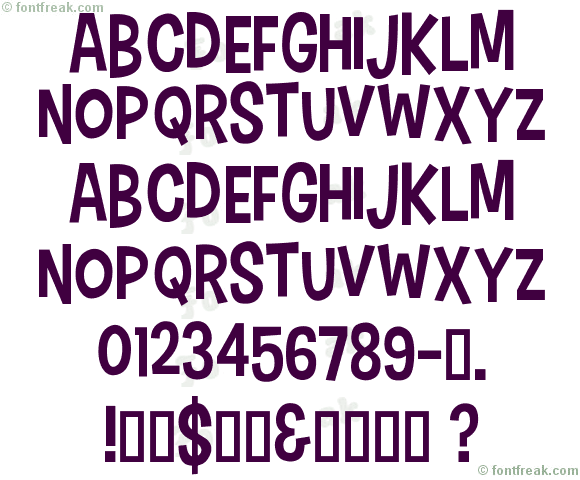
Carton Six
About Carton Six
Carton Six, designed by Jayvee Enaguas, is a striking display font that perfectly blends fun and functionality. As a decorative font, it features bold, chunky letterforms that instantly grab attention. The unique stroke weight creates a sense of playfulness, while the consistent spacing ensures readability, making it an excellent choice for various creative projects. With its rounded edges and slightly exaggerated proportions, Carton Six exudes a modern charm that can elevate any design.
This font is particularly well-suited for a range of applications. It shines in contexts such as event posters, where its eye-catching presence can draw in crowds. Additionally, it is ideal for children’s book covers, bringing a whimsical touch that appeals to younger audiences. Restaurant menus can also benefit from Carton Six, as its boldness commands attention, making dish names pop. Moreover, its playful nature makes it perfect for social media graphics, allowing content creators to craft engaging posts that resonate with followers.
What sets Carton Six apart is its distinctive character and versatility. It stands out in a crowded field of fonts, combining a playful aesthetic with practical usability. Whether you are launching a new product, designing an event, or simply looking to add flair to your creative projects, the Carton Six font free download offers an opportunity to infuse your designs with personality and style. Embrace the charm of Carton Six and let your creativity shine.